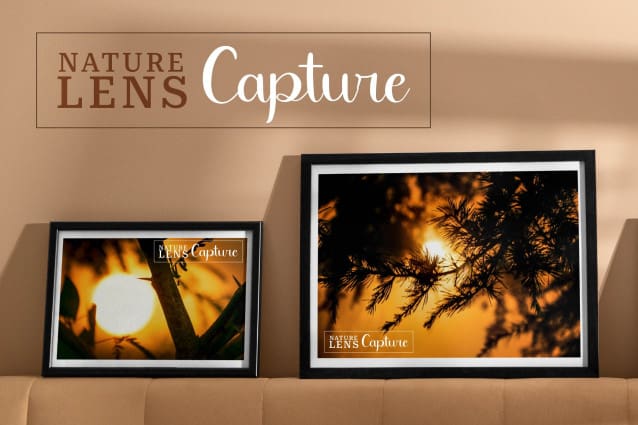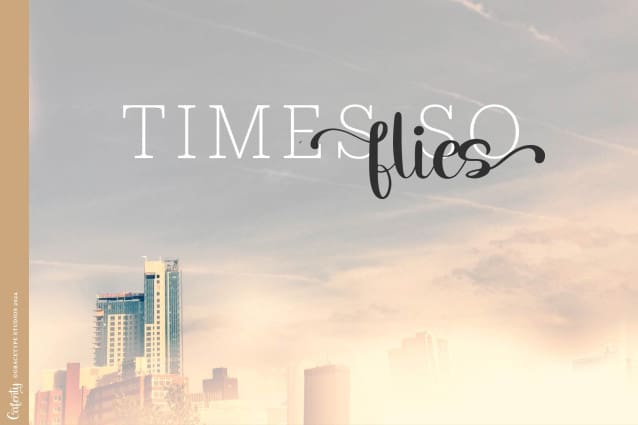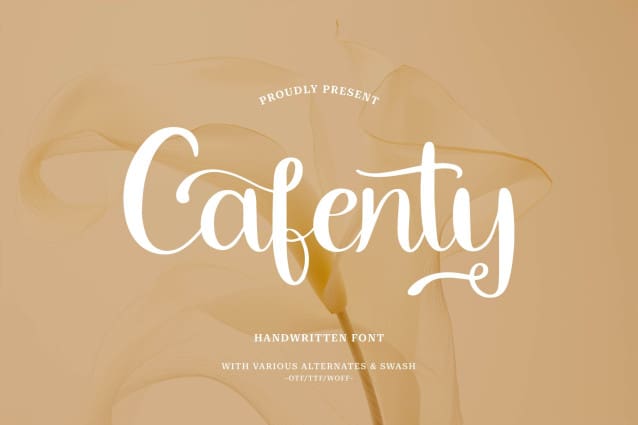
Cafenty Script Font
Cafenty Script Font, from Gracetypestudio, suitable for any projects such as: logos, branding projects, homeware designs, product packaging, mugs, quotes, posters, shopping bags, t-shirts, book covers, name card, invitation cards, greeting cards, label, photography, watermark, special events, and all your other lovely projects that need a beautiful script taste.